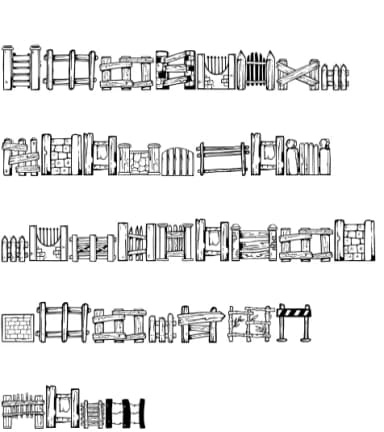
This hand-drawn dingbat font carries genuine playful charm that feels authentically crafted rather than mass-produced. Guardrail by onoborgol delivers decorative character through carefully considered vector work, avoiding the flat and template-like feel you find in many dingbat collections. The details hold up equally well at small sizes in stationery or when scaling up for larger design elements.
You'll discover strong applications across multiple project types: scrapbooking layouts where custom borders truly make a difference, greeting card suites that need ornamental detail and personality, DIY planner spreads with cohesive visual framing systems, or boutique product labels where the handmade aesthetic directly strengthens brand identity. The fence and guardrail motifs function both as standalone dividers and as combined elements forming larger background panels, letting you control the decoration level based on your specific layout needs. Invitation suites benefit from these charming graphic touches, event stationery gains visual richness without clutter, and craft packaging projects find a consistent decorative voice across tags, labels, and coordinating borders.
Guardrail Font